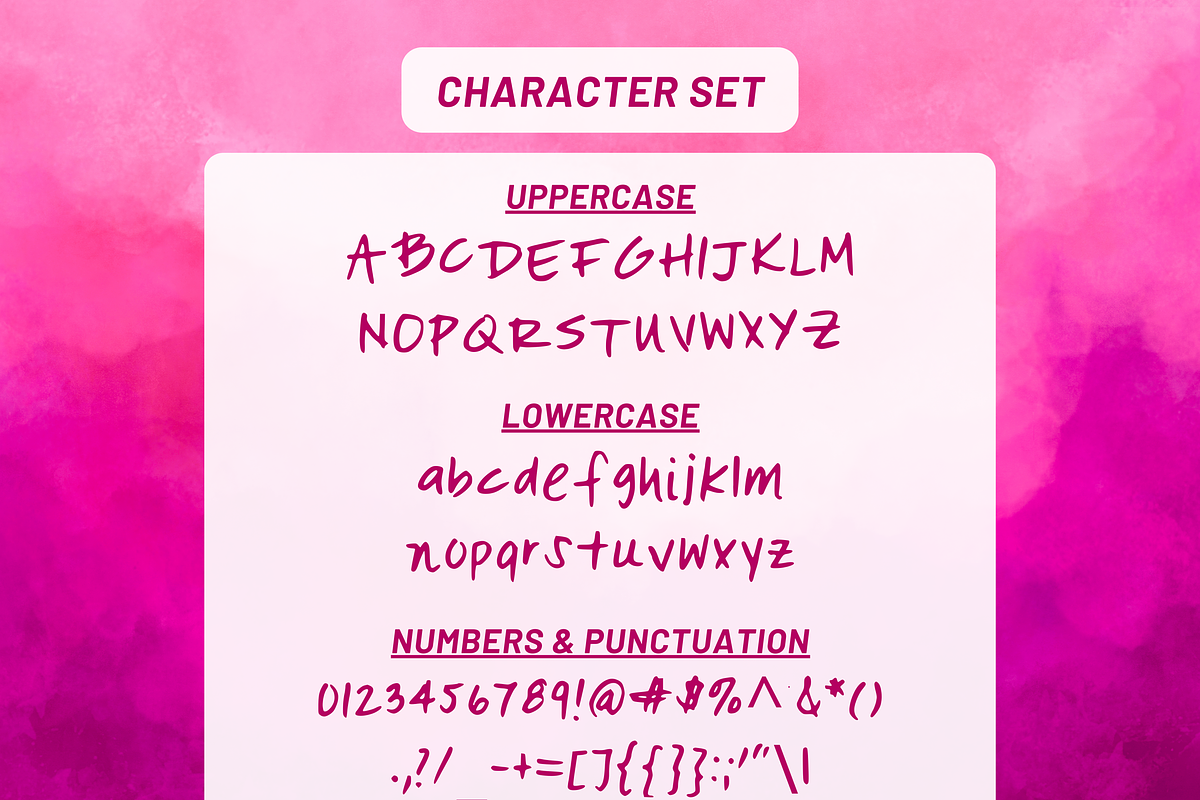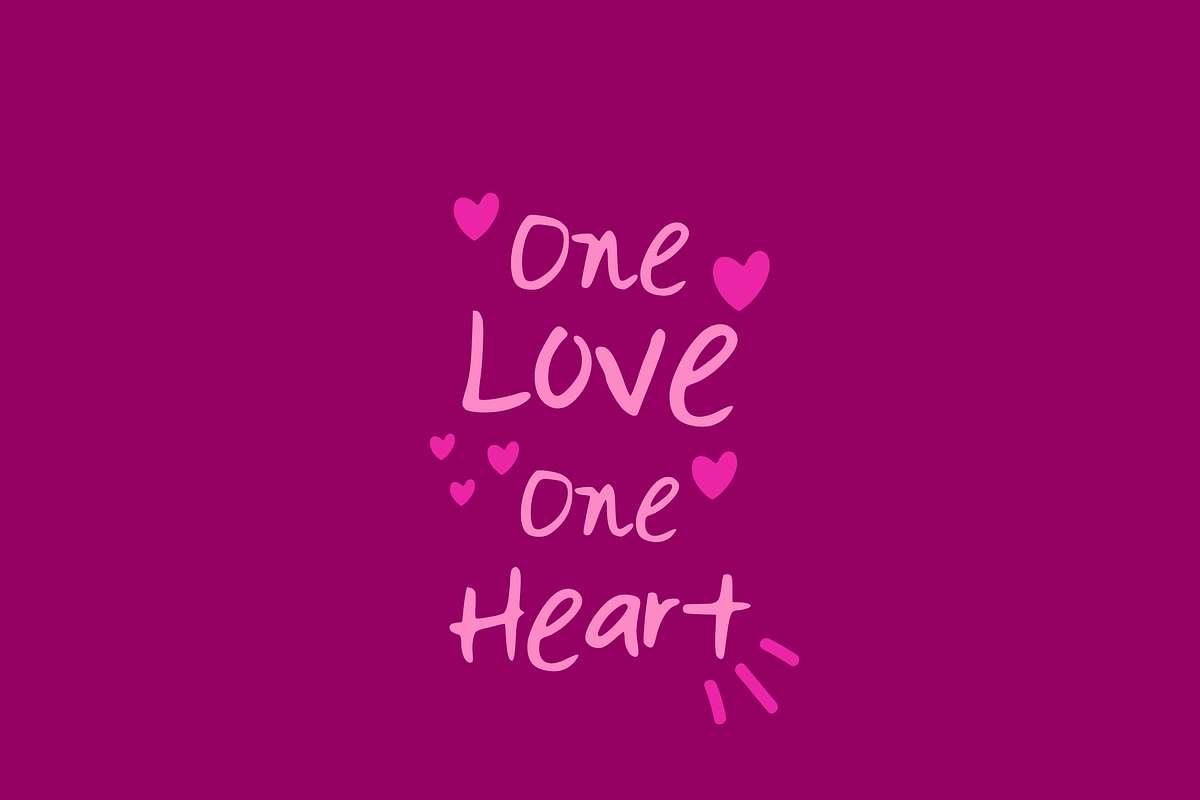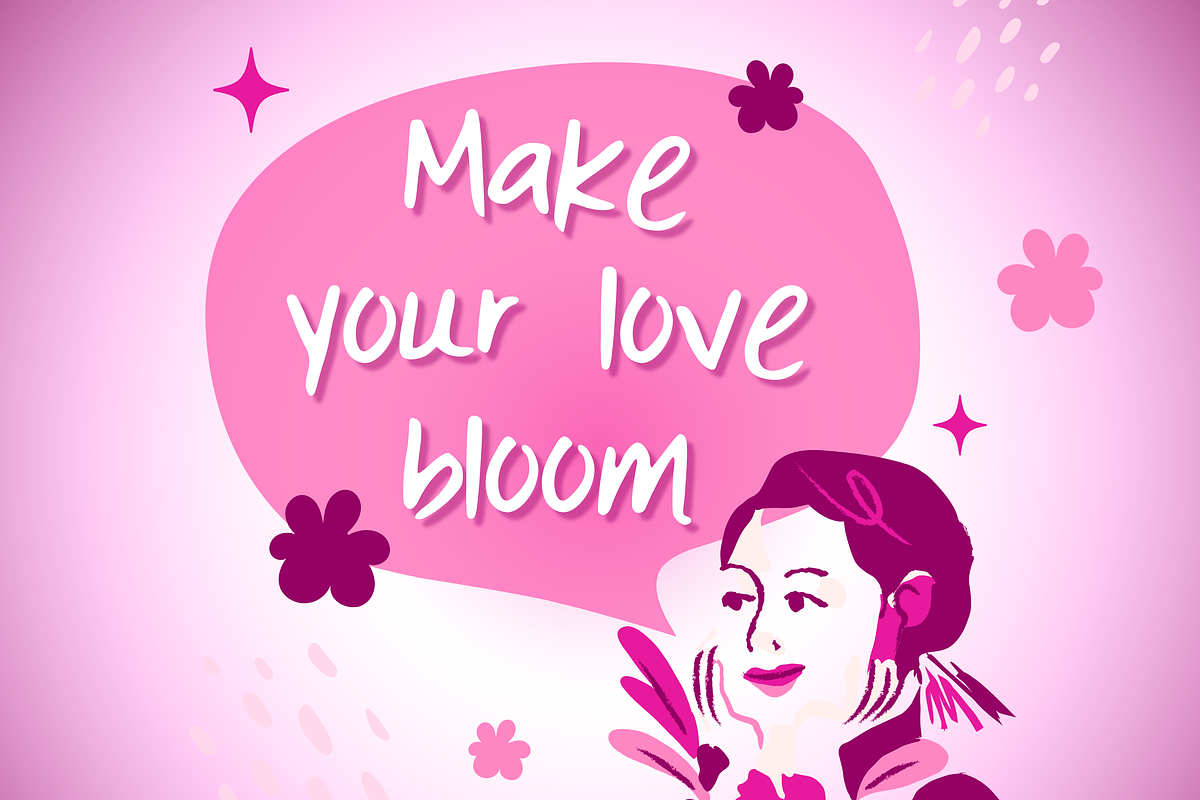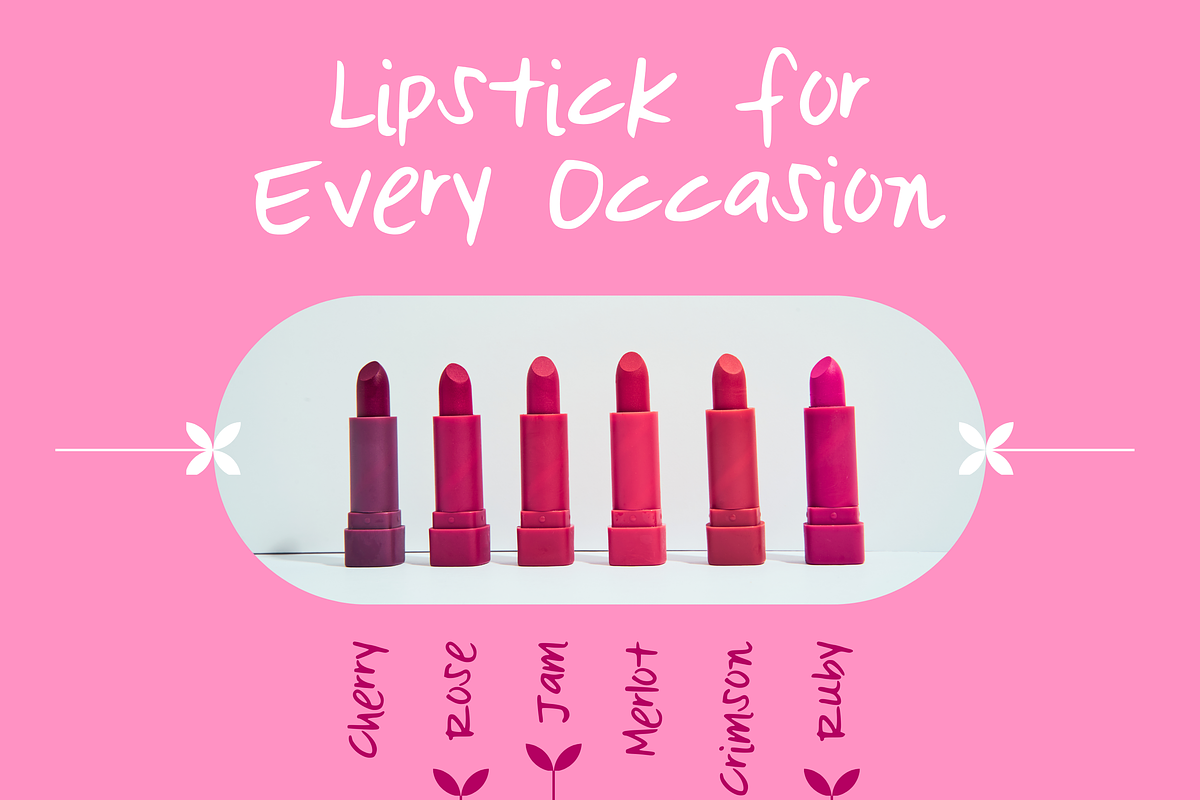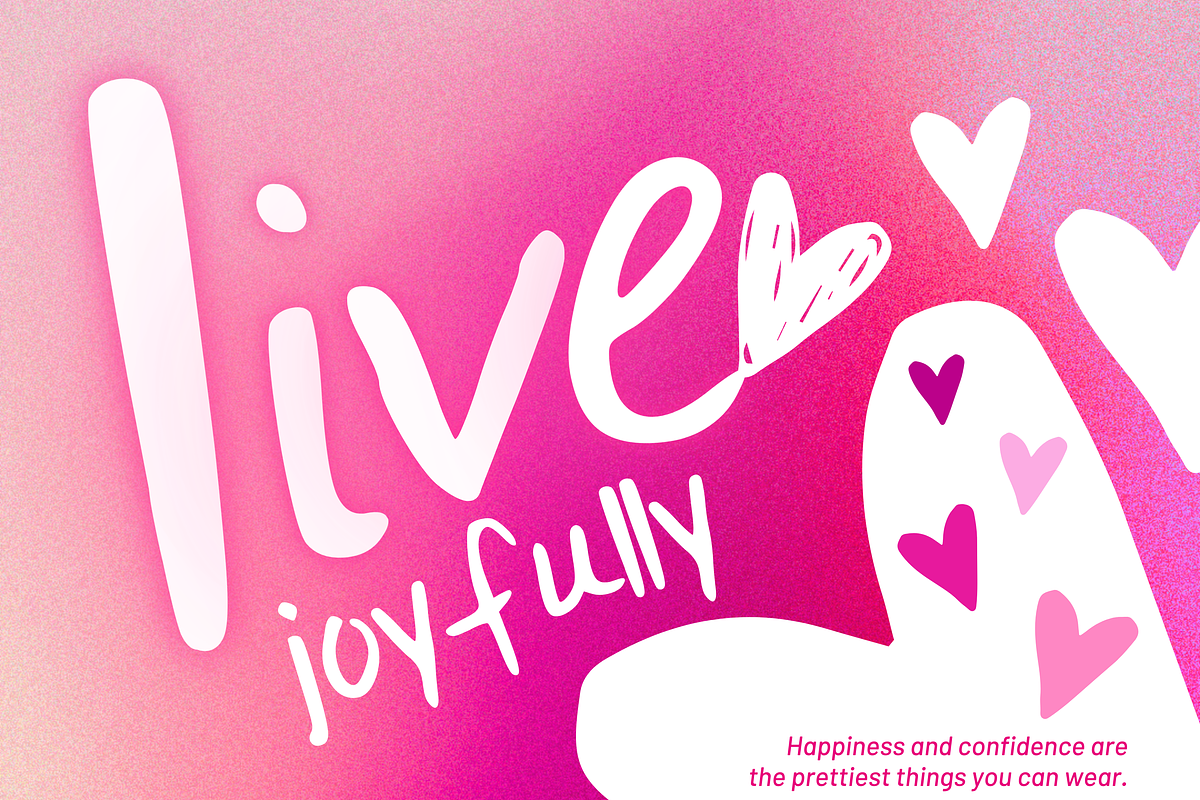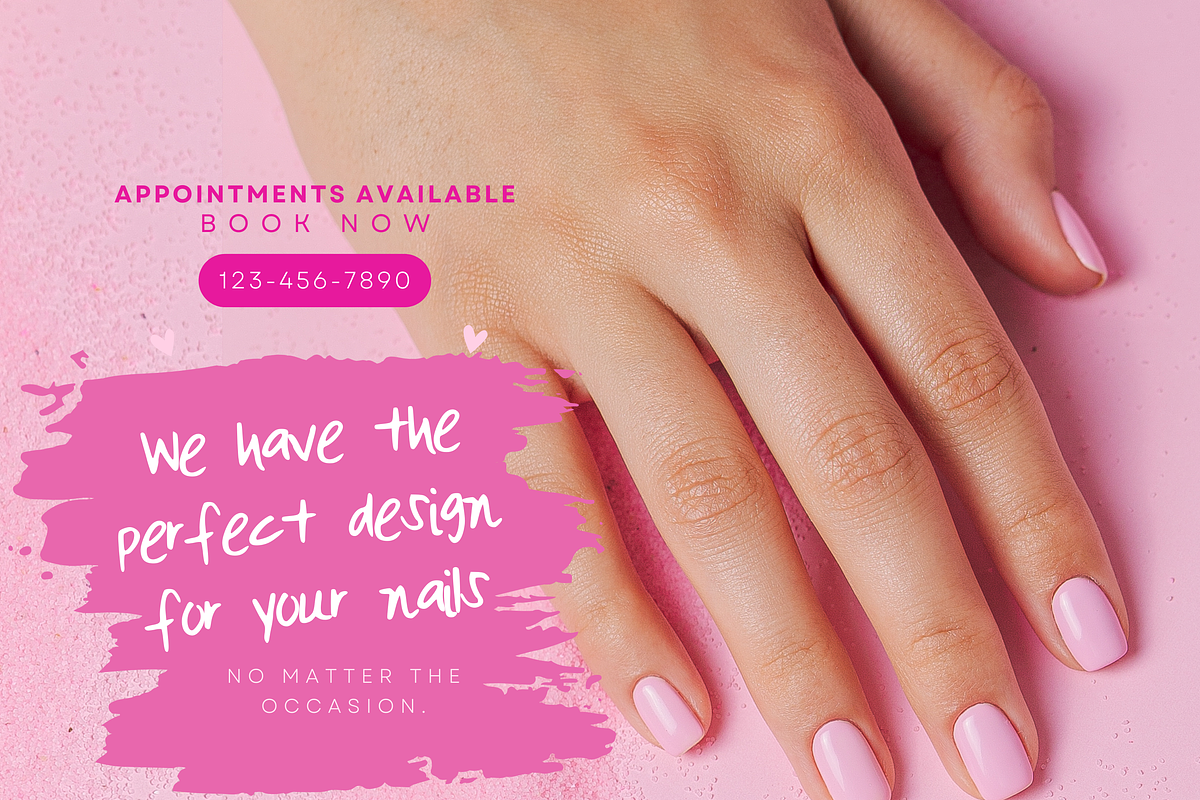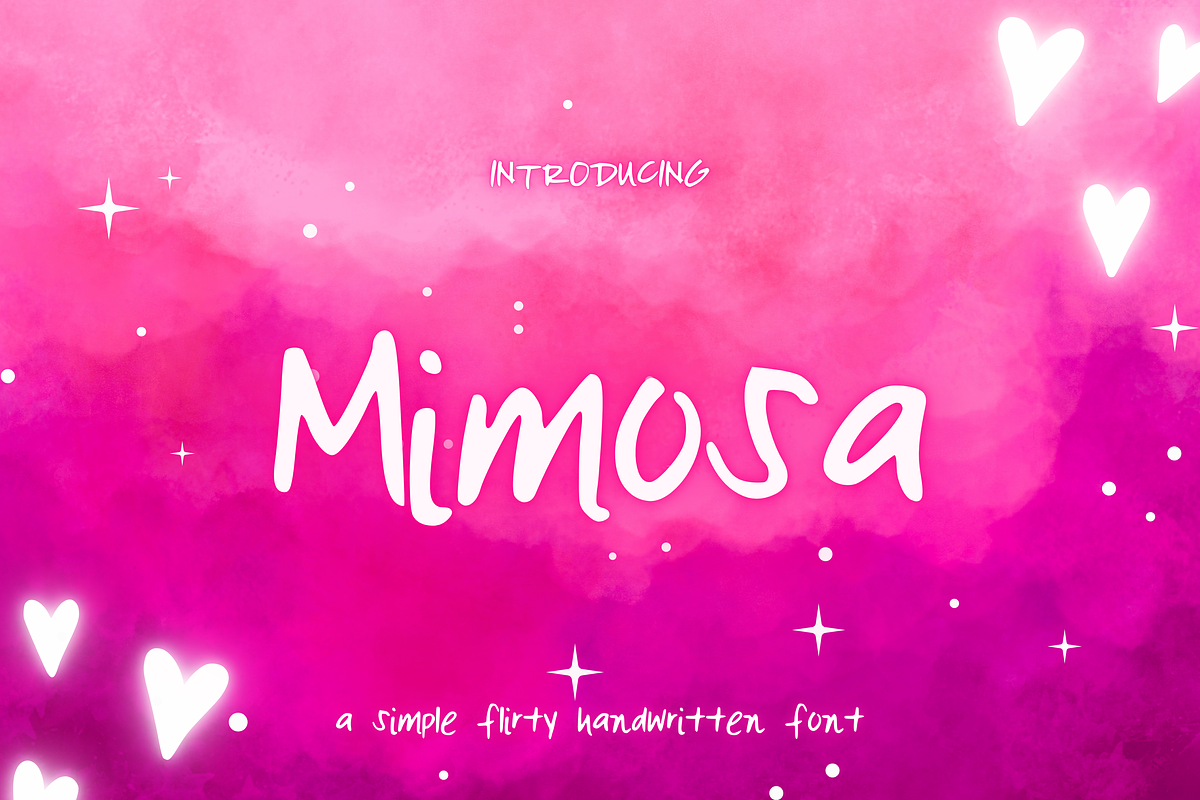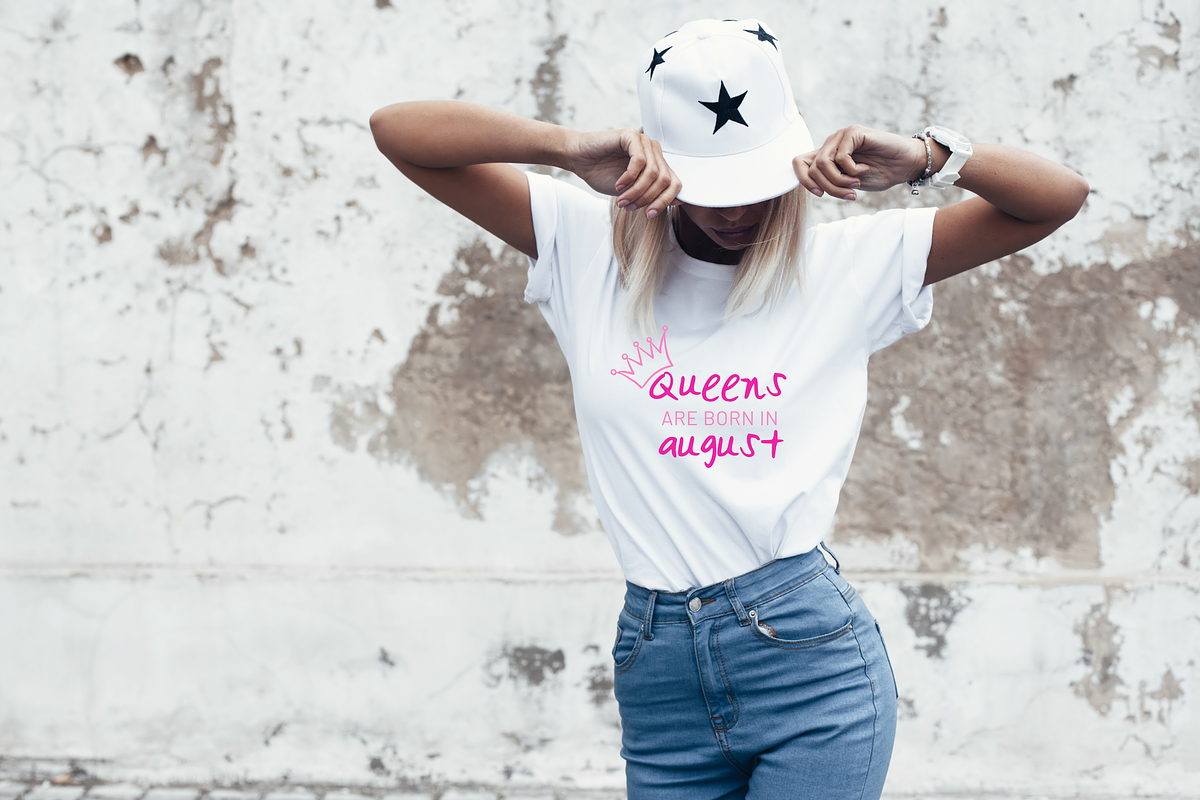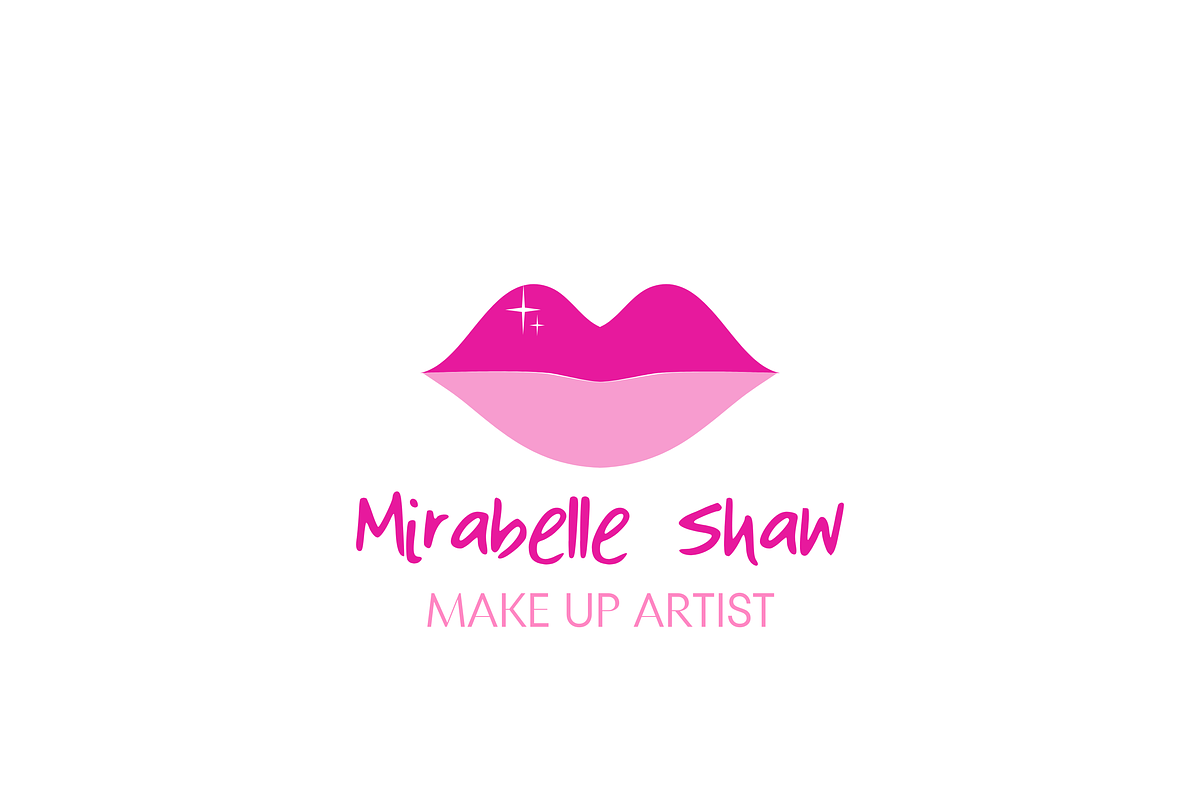
Mimosa Handwritten Font + SVG
Introducing Mimosa, a simple flirty handwritten sans font.
- Great for wedding invitations, social media infographics, banners, etc.